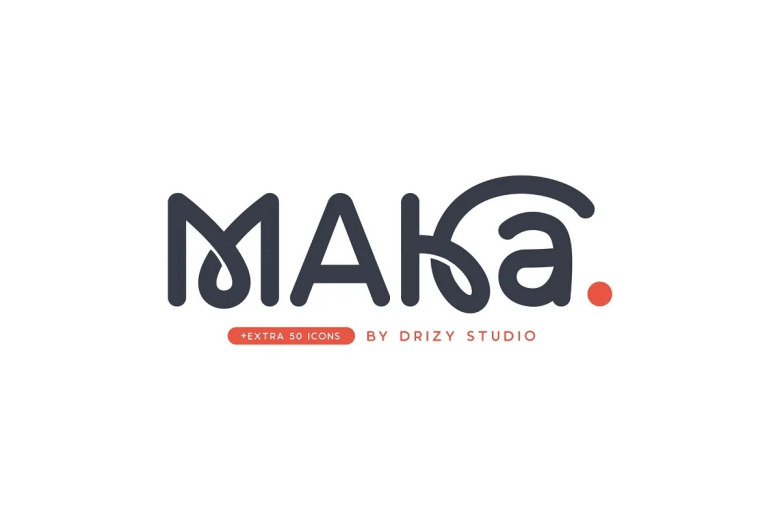
Maka Font
Maka is an incredibly unique and stylish display font. It can easily be matched to an incredibly large set of projects, so add it to your creative ideas and notice how it makes them stand out!
Maka Display Font